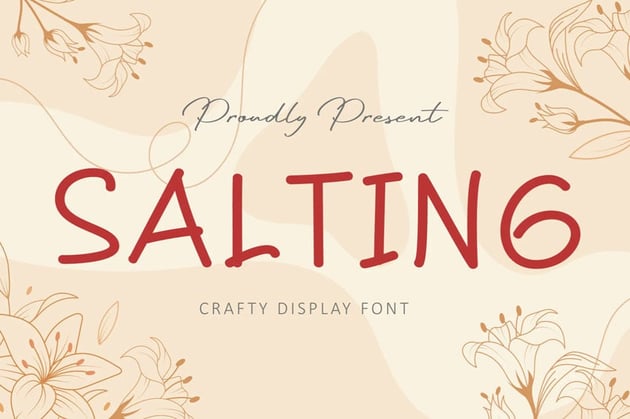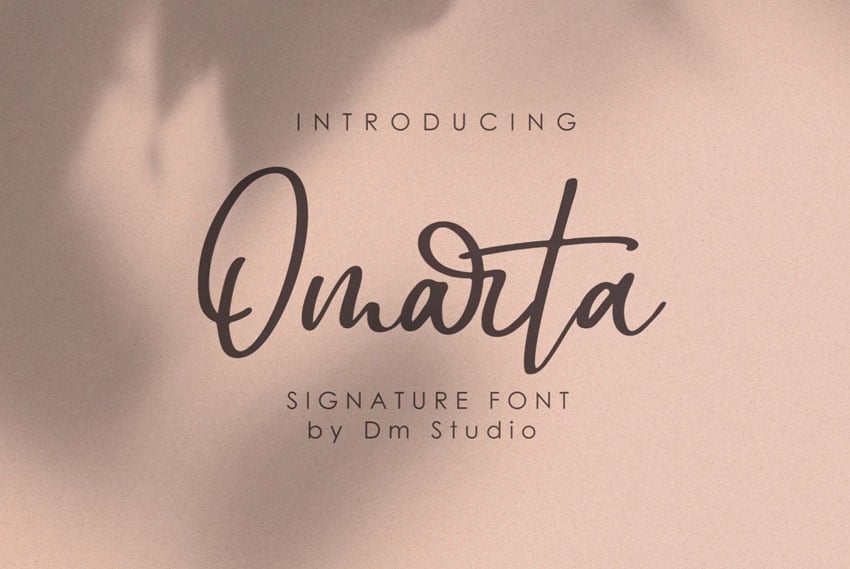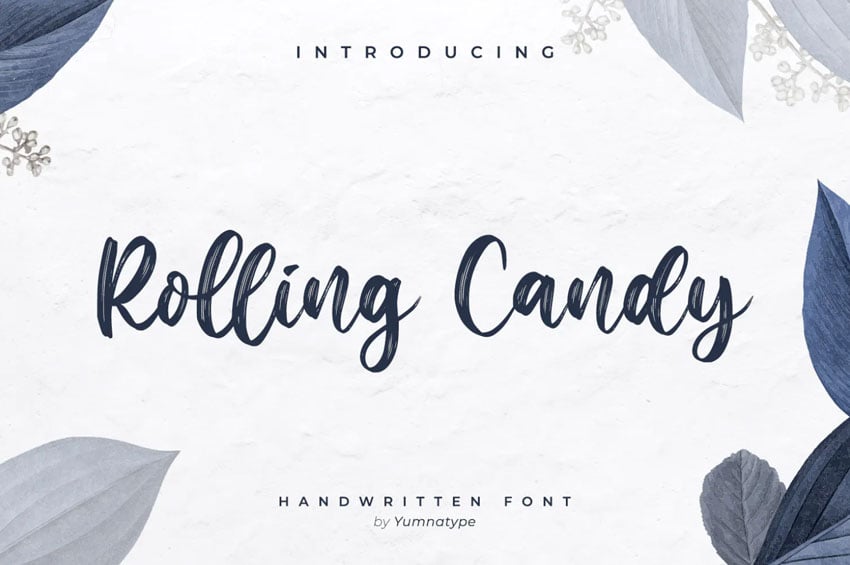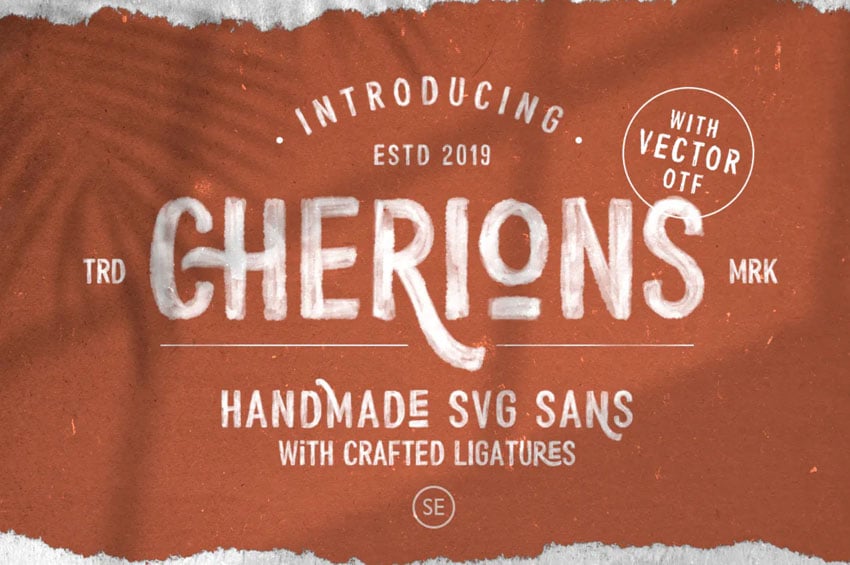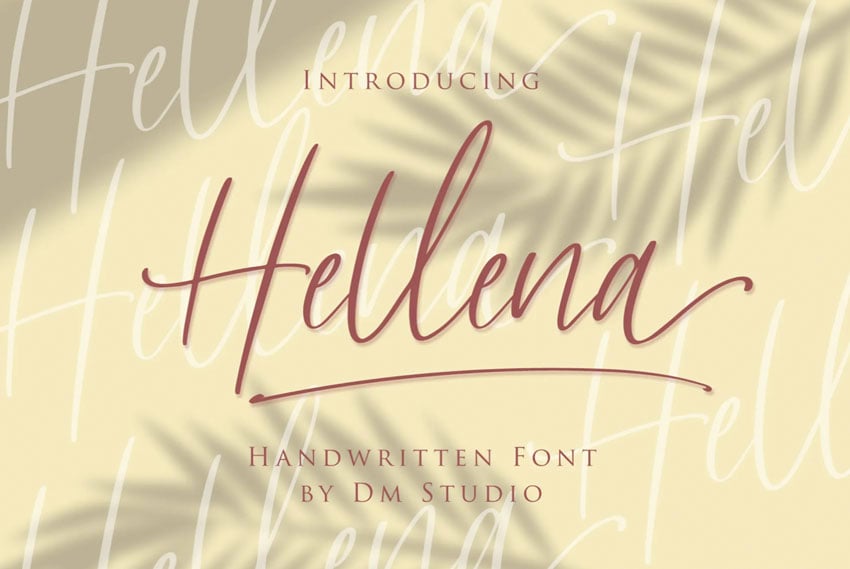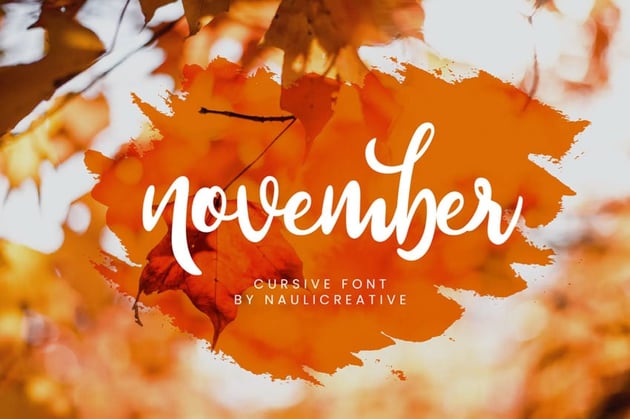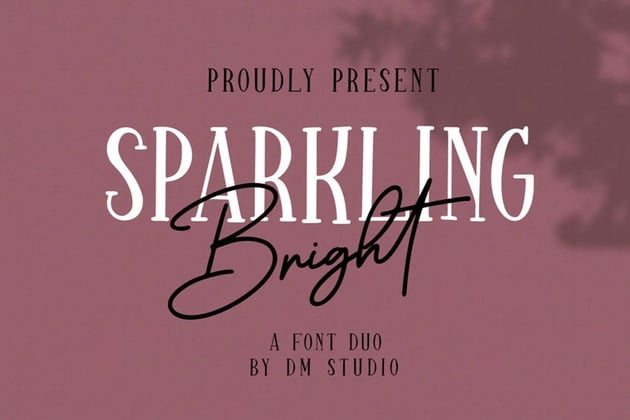
Find the Perfect Autumn Fonts for Your Fall Designs
Fall fonts tend to push into an aesthetic that captures the cool, earthy vibe of the season. Of course, this means a lot of diversity and versatility too. Remember, the best font choice for your design project should put your target audience and objectives first. Think of this as a font look book, perfect for fall lettering inspiration.
When it comes to fall fonts, a stylish fall calligraphy font is particularly on trend. You'll notice that hand lettering is particularly popular, and it's no wonder. There's something so organic and warm about a hand-drawn aesthetic. This also translates well into other types of fall fonts.
Which Fonts Will You Use in Your Fall Designs?